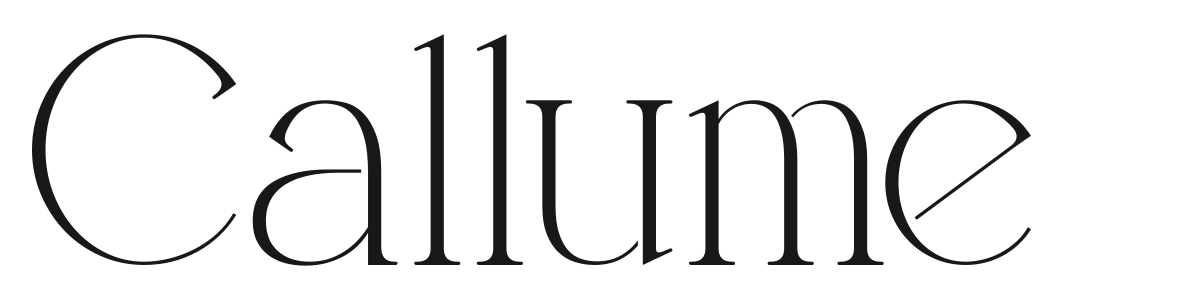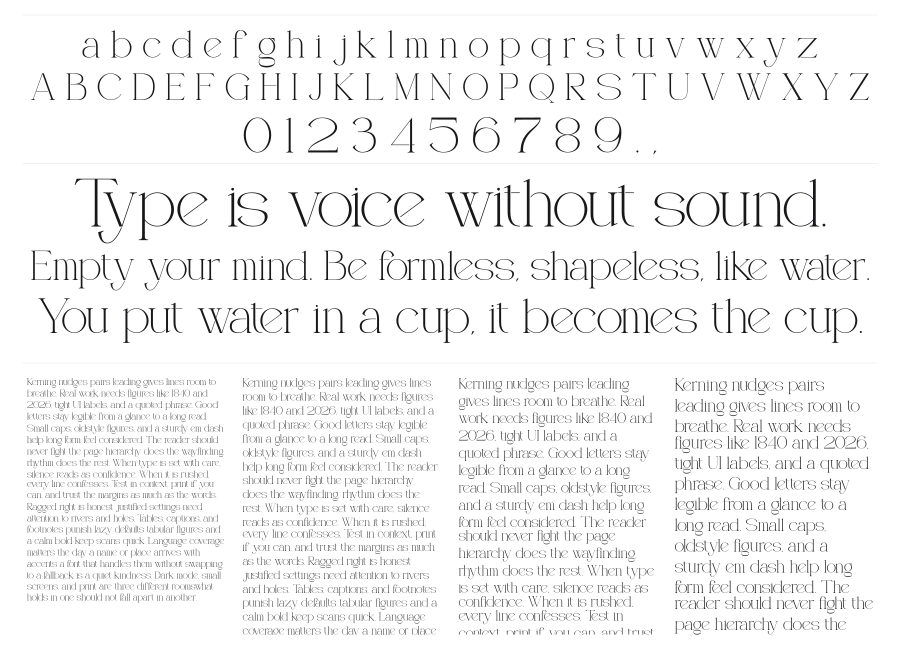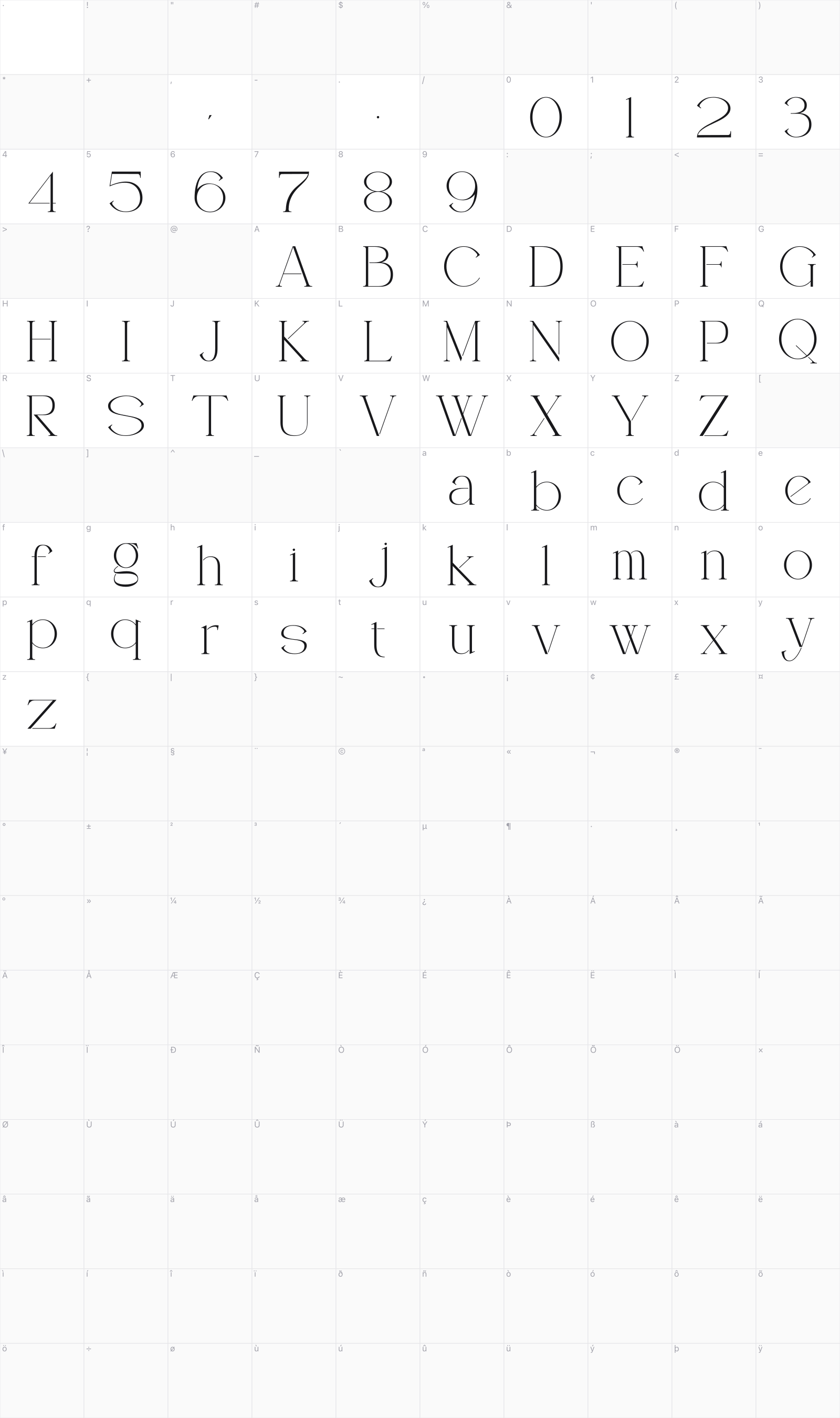
Callume
Callume is a high-contrast modern serif with extreme hairline strokes and tall, graceful proportions that read as quietly luxurious. The flat serifs and open curves give it a contemporary Didone feeling without feeling like a direct revival. It thrives at large sizes in fashion editorial, beauty packaging, and high-end branding.